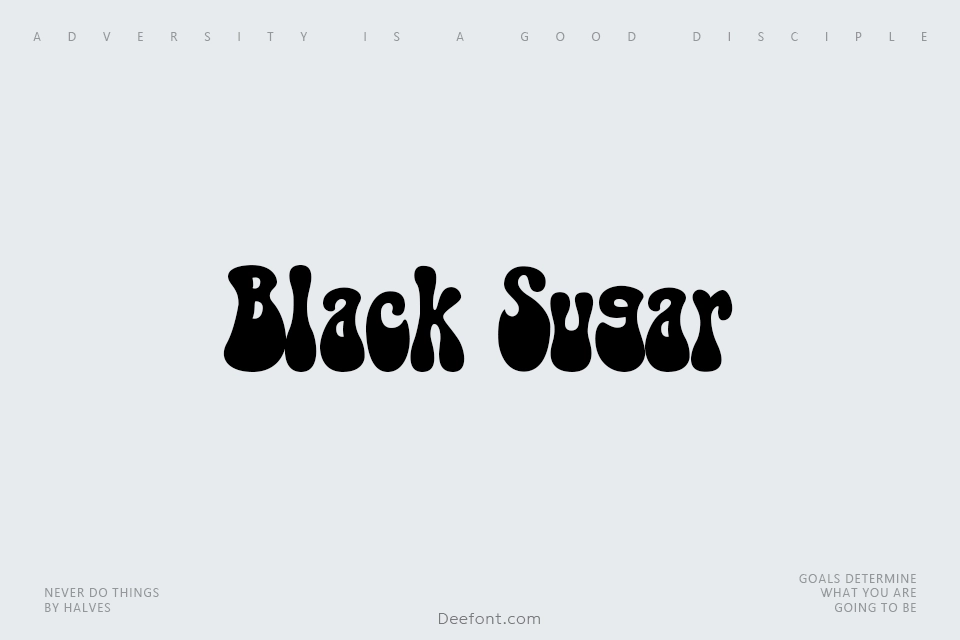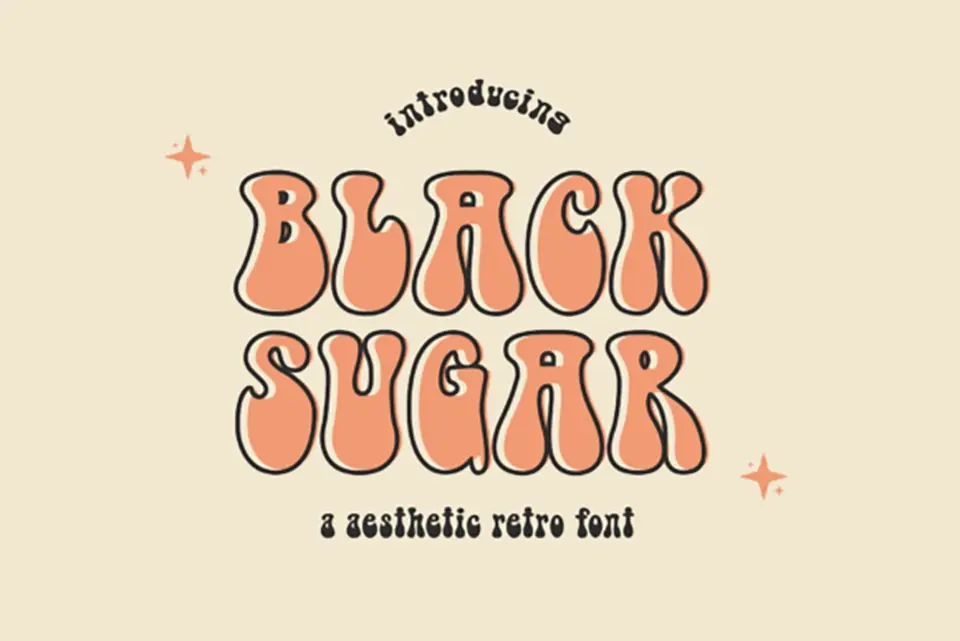
Black Sugar Font
Black Sugar is a groovy and extra-bold display font that injects retro charm into any design. Featuring condensed width and bold strokes with playful curves, this versatile typeface captures attention effortlessly. Perfect for vibrant posters, album covers, headlines, logos, and packaging projects. With its blend of modern sophistication and vintage flair, Black Sugar evokes the energetic spirit of the 1960s while maintaining contemporary appeal for music festival promotions, fashion brands, and creative branding applications.